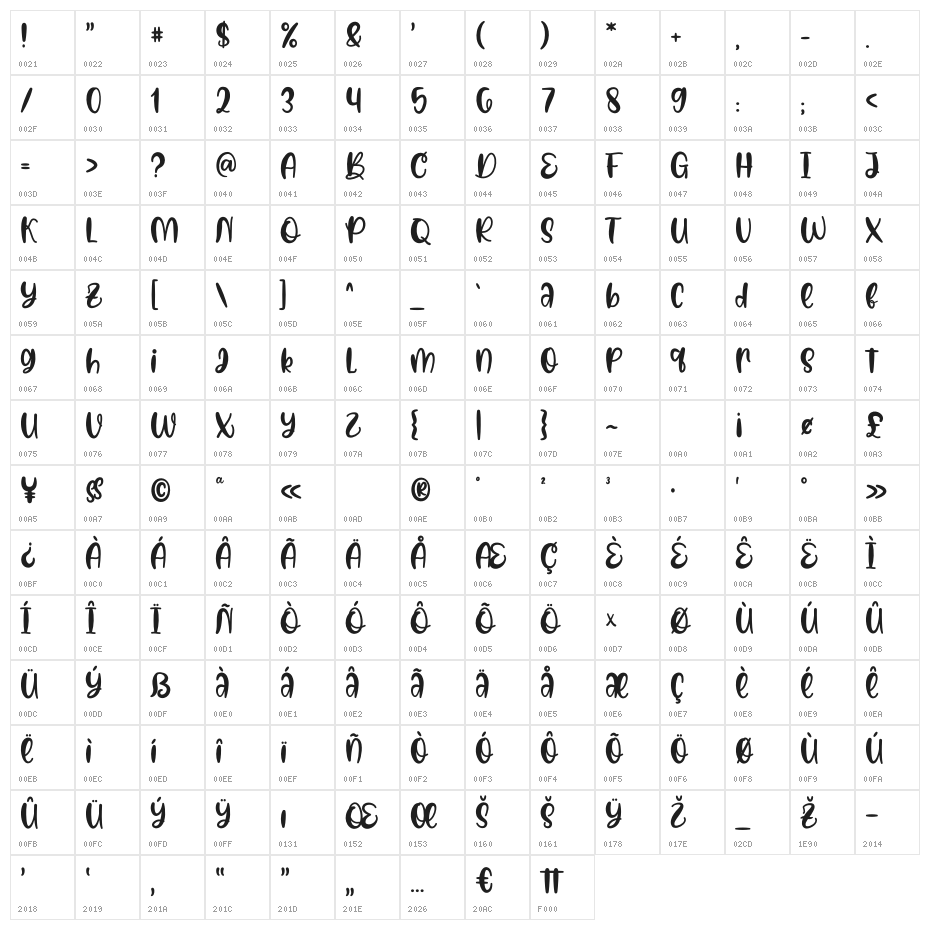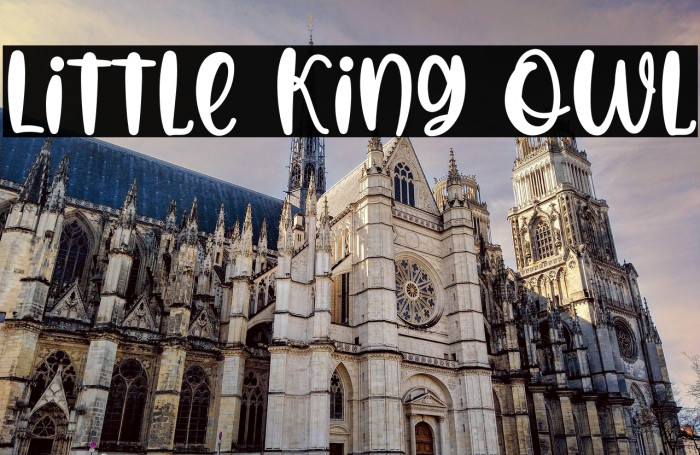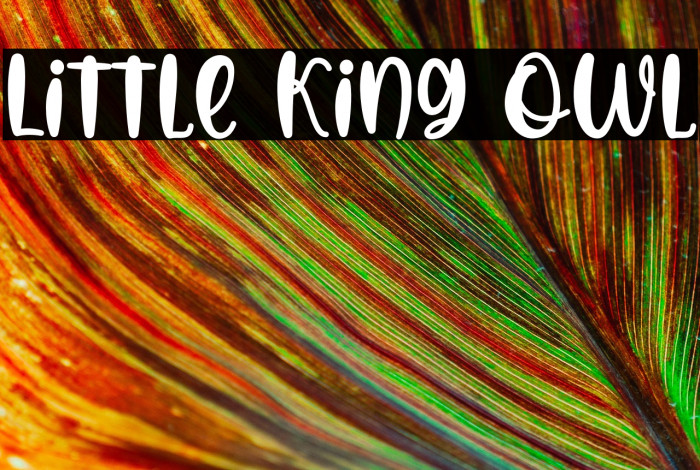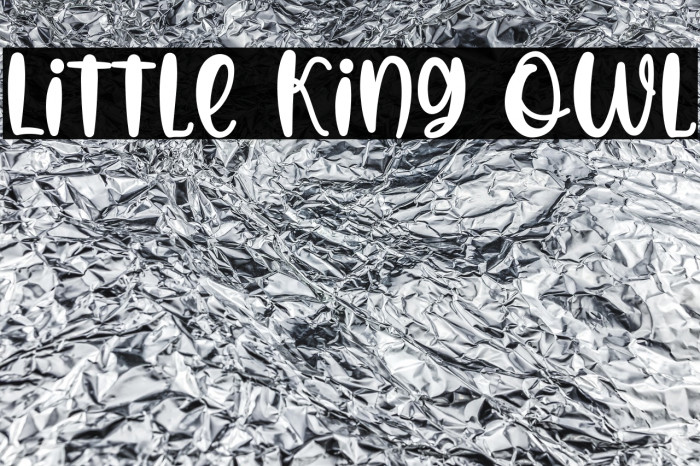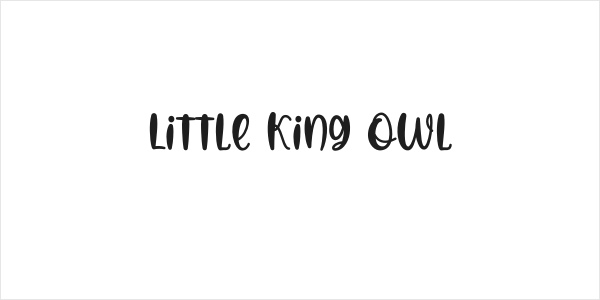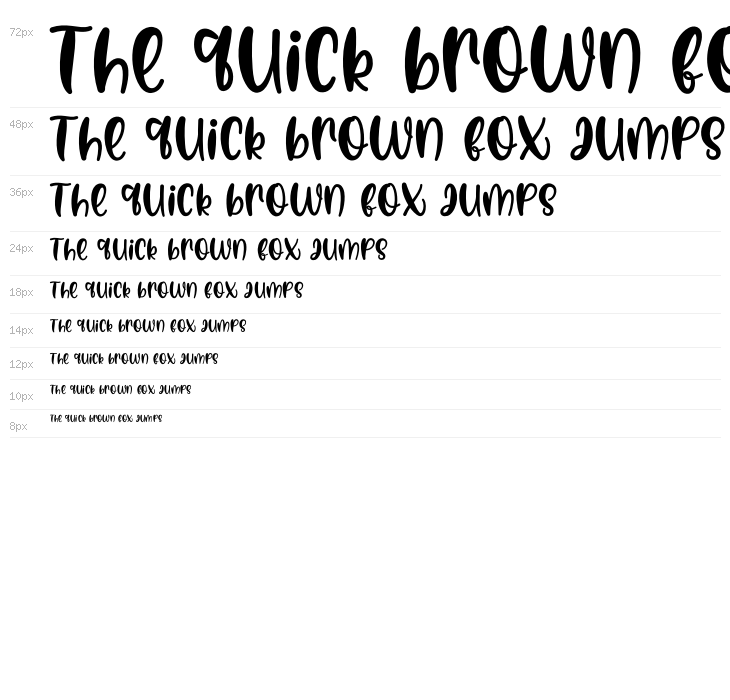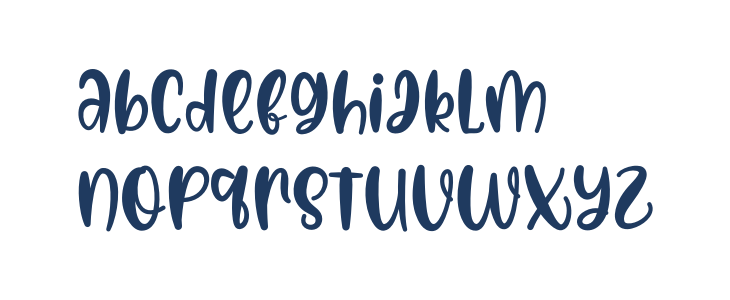
Little King Owl Font
Little King Owl Description
This font features a playful and whimsical style, characterized by its bold and rounded letterforms. The strokes are thick and consistent, giving it a strong presence on the page. Each character has a slightly irregular shape, adding a touch of hand-drawn charm. The uppercase and lowercase letters maintain a cohesive look, while the numbers and special characters are crafted with the same playful aesthetic. This font is ideal for projects that require a fun and lively touch, such as children's books, playful branding, or creative posters.